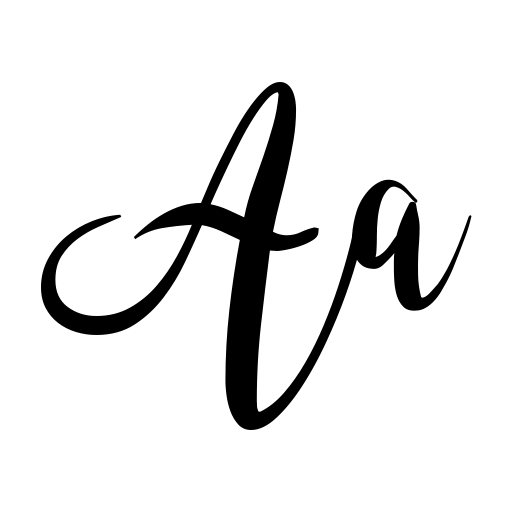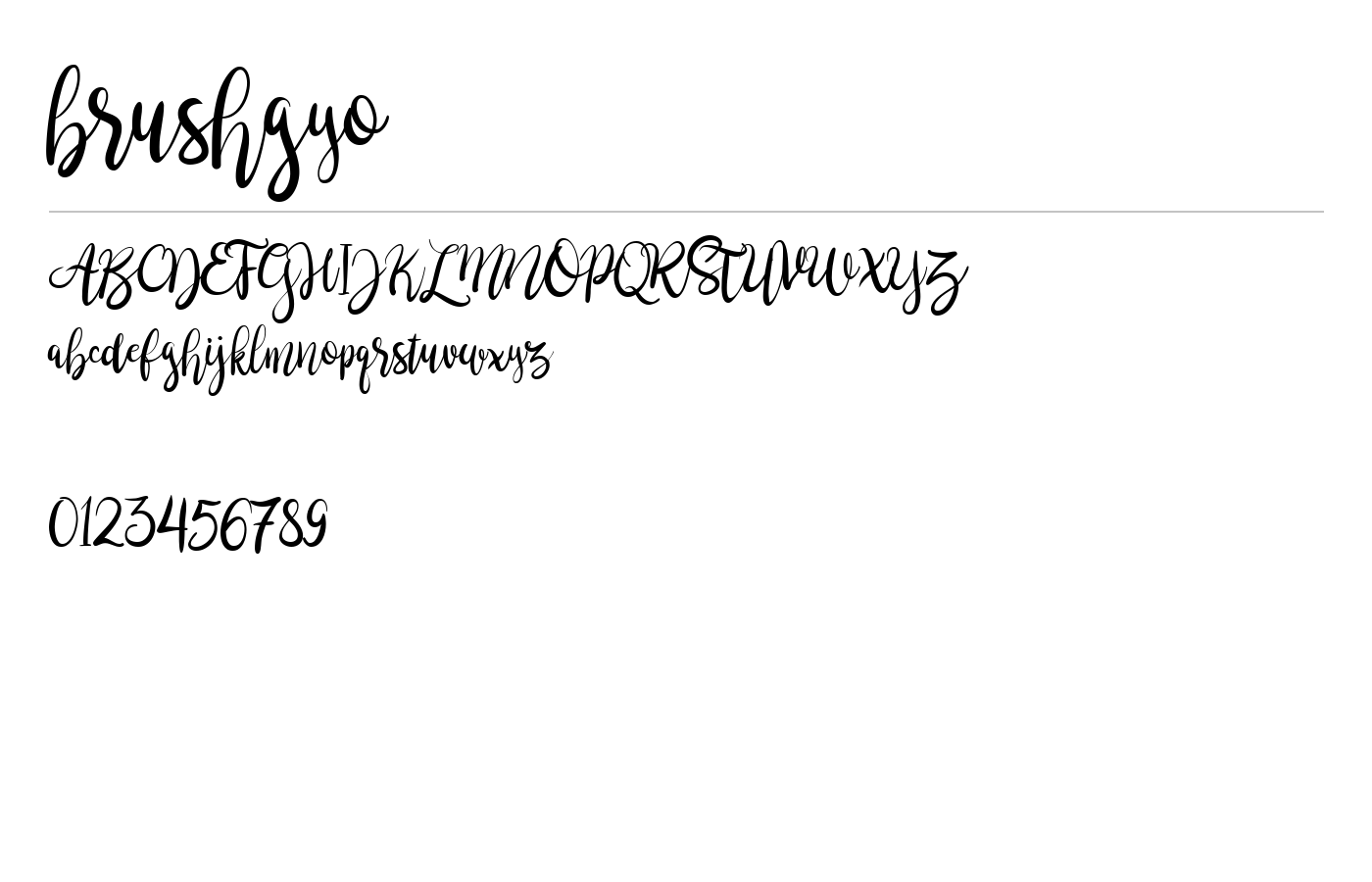
Brushgyo is a lively and elegant script font that features fluid, hand-brushed strokes with a medium weight and a playful, artistic flair. Its tall x-height and varying stroke thickness create a dynamic and graceful appearance, making it ideal for creative projects, invitations, logos, and branding that seek a personal, sophisticated touch. This font’s stylish yet readable letterforms bring a warm, inviting personality to any design while maintaining clear legibility.
brushgyo Font
About brushgyo Font
| Font family | brushgyo Font |
| Designer | Alit Suarnegara |